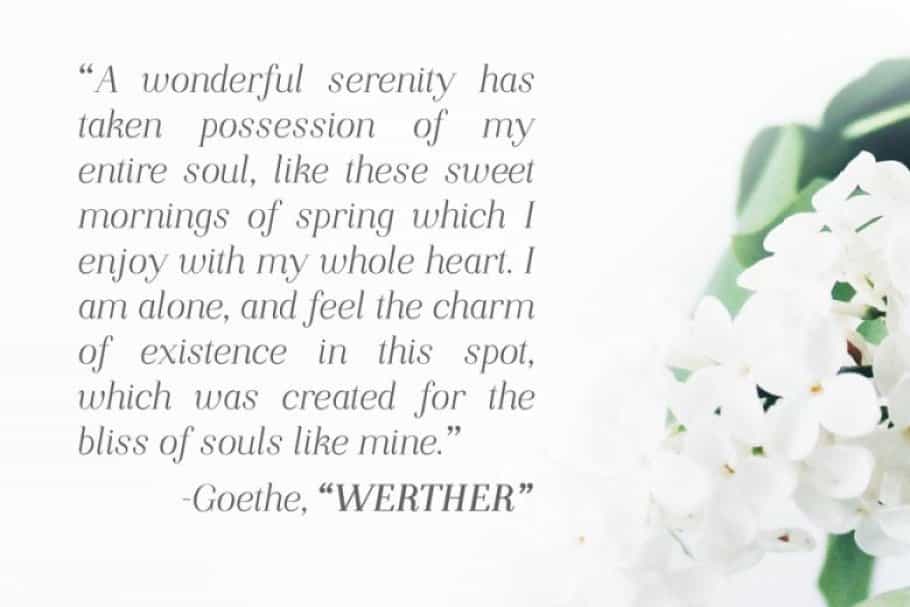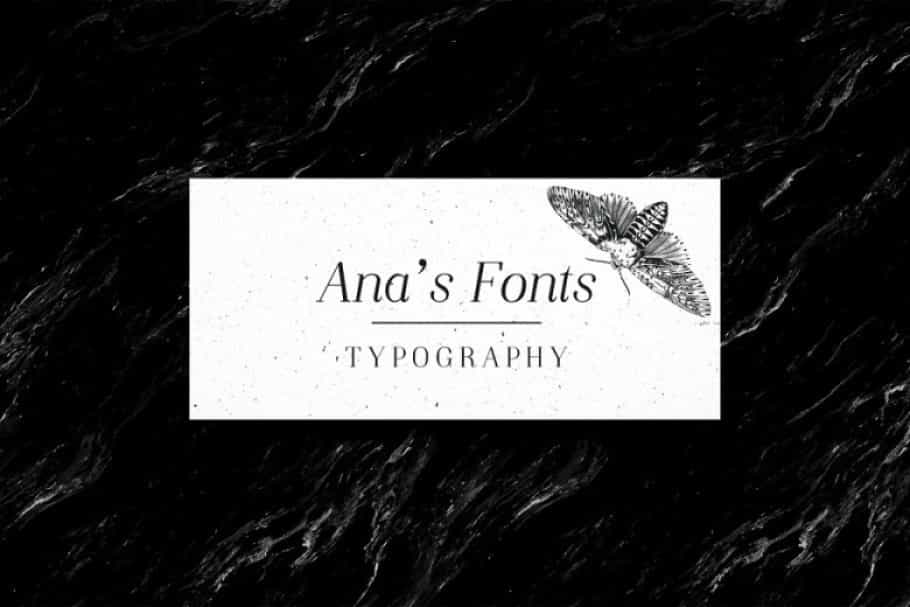
Here comes Night Still Comes Lite. It was designed and distributed by Ana’s Fonts. This is a lighter type of Night Still Comes, having 224 glyphs. Night Still Comes is a perfect name for logos and branding, editorial use ,titles and subtitles, quotes, postcards, invitations etc.